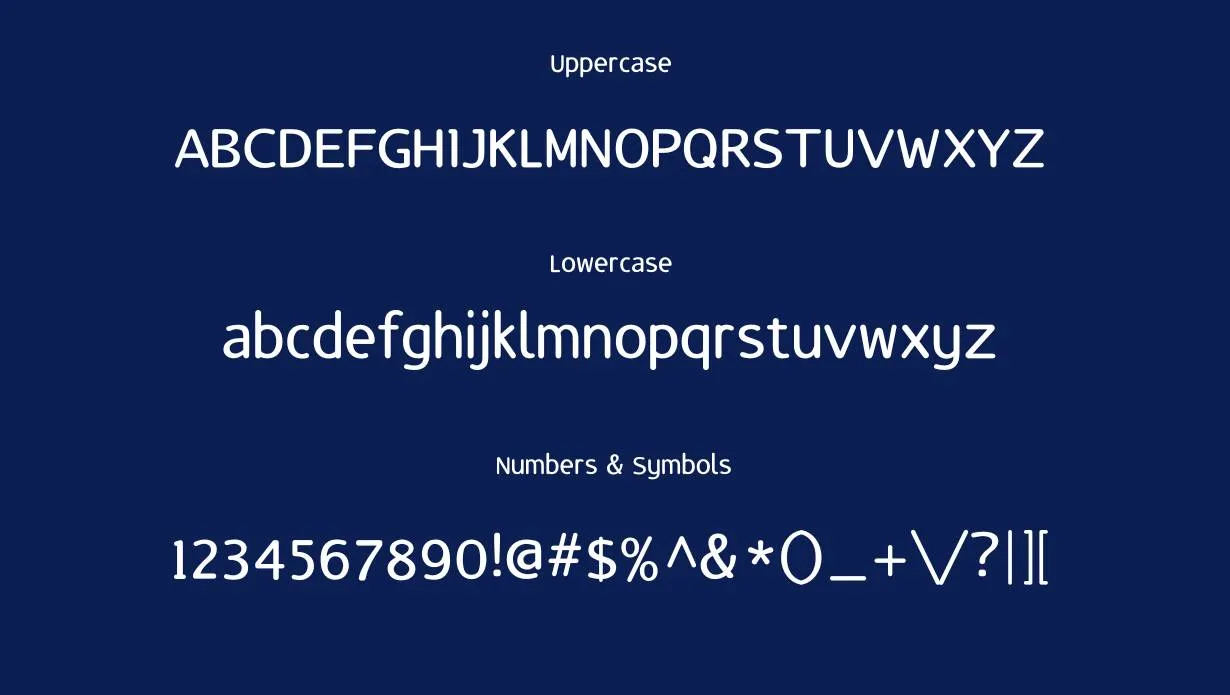
Lucy Rounded Font brings a playful and friendly vibe to your design projects. The rounded edges of each letter give it a soft and approachable appearance, making it perfect for informal communication, children’s materials, or anything that calls for a touch of whimsy.
This font’s lightweight and slightly expanded width contribute to its casual and lighthearted feel, making it an excellent choice for creative endeavors.